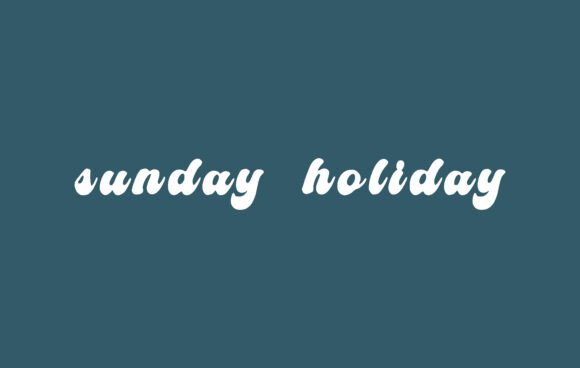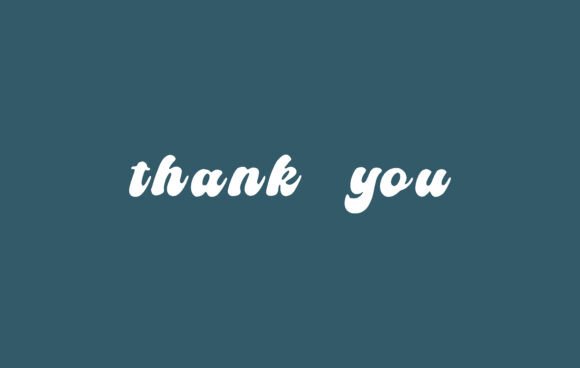
Discover the Elegance of Divine Grace Font: Elevate Your Designs with a Romantic Touch
In the world of typography, a font can make all the difference in conveying the right message and evoking the desired emotions. For designers and crafters seeking to add a touch of romance and sophistication to their projects, the Divine Grace font is an exceptional choice. This authentic handwritten font is expertly designed to capture the essence of elegance and charm, making it a true favorite among creative enthusiasts.
The Characteristics of Divine Grace Font
Divine Grace font boasts a unique blend of classic and modern elements, making it a versatile and legible choice for various design applications. Its authentic handwritten style exudes a sense of warmth and personality, while its romantic touch adds a dash of whimsy and flair. The font’s exceptional craftsmanship ensures that it looks great as a title or body text, making it perfect for a wide range of projects.
Endless Design Possibilities with Divine Grace Font
One of the standout features of Divine Grace font is its incredible versatility. Its elegant and refined appearance makes it an excellent choice for:
- Magazine Headlines: Create eye-catching titles that grab attention and set the tone for your publication.
- Social Media: Elevate your online presence with stylish and engaging text that resonates with your audience.
- Branding: Establish a strong visual identity for your business or product with a font that exudes sophistication and charm.
- Wedding Invitations: Add a touch of romance and whimsy to your wedding stationery and make your special day even more unforgettable.
- Cards and Greeting: Create beautiful and heartfelt cards for any occasion, from birthdays to holidays.
Why Choose Divine Grace Font?
With so many fonts available, what sets Divine Grace apart? Here are just a few reasons why designers and crafters love this exceptional font:
- Legibility: Divine Grace font is designed to be easy to read, making it perfect for body text and titles.
- Uniqueness: Its authentic handwritten style ensures that your designs stand out from the crowd.
- Romantic Touch: Add a dash of whimsy and charm to your projects with a font that exudes elegance and sophistication.
- Versatility: Use Divine Grace font in a wide range of design applications, from digital to print.
Tips and Tricks for Using Divine Grace Font
To get the most out of Divine Grace font, here are a few expert tips:
- Mix and Match: Combine Divine Grace font with other fonts to create a unique and visually appealing design.
- Experiment with Colors: Try out different color schemes to find the perfect match for your design.
- Play with Sizes: Use Divine Grace font in various sizes to create visual hierarchy and add emphasis.
Divine Grace font is a true gem in the world of typography. Its elegant and refined appearance, combined with its versatility and legibility, make it an exceptional choice for designers and crafters seeking to add a touch of romance and sophistication to their projects. Whether you’re working on a magazine headline, social media post, or wedding invitation, Divine Grace font is sure to elevate your designs to new heights. So why wait? Discover the elegance of Divine Grace font today and take your creative ideas to the highest level!